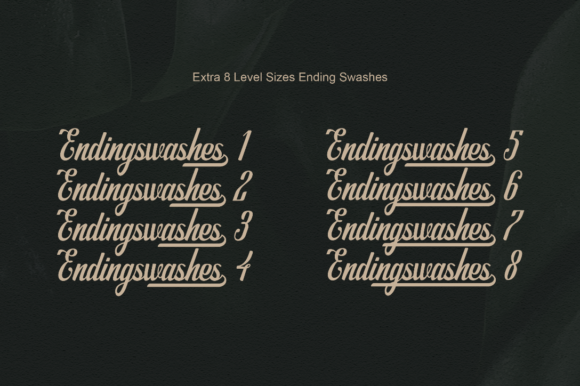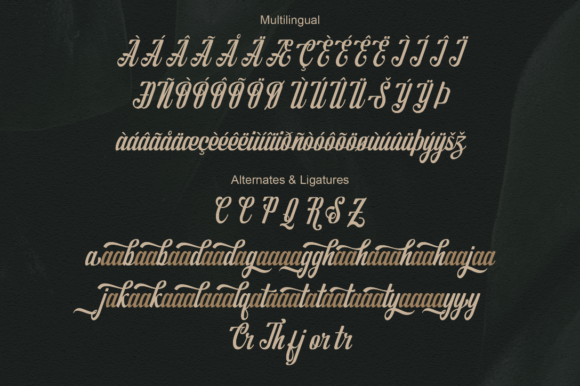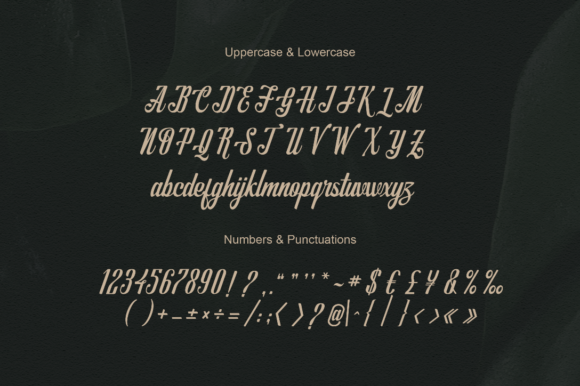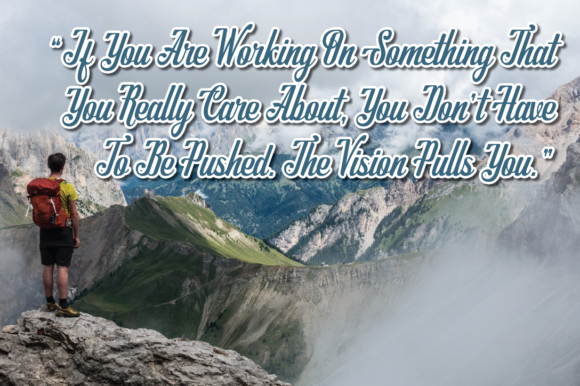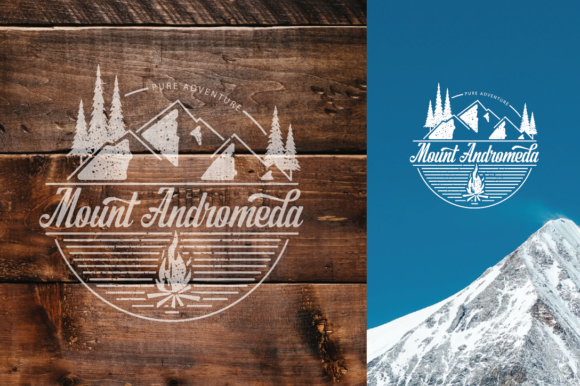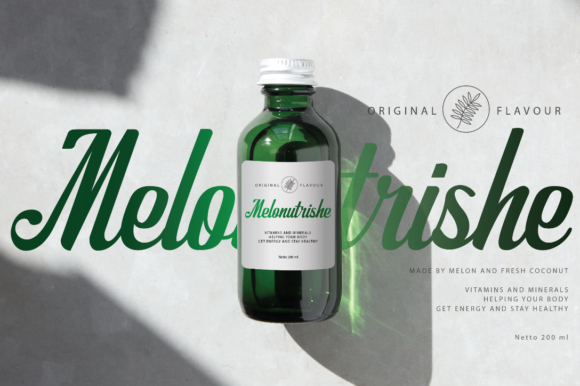
Introduction to Queenetha Font
As a designer, have you ever found yourself in a creative rut, staring at a blank page, and desperate for the perfect font to bring your project to life? I know I have! It’s those moments that make me appreciate the little gems I’ve discovered along the way, like the stunning Queenetha Font.
This high-quality, free download has become a staple in my design arsenal, and I’m excited to share its awesomeness with you. With its unique, handwritten style, Queenetha Font adds a touch of personality to any creative project, from branding to editorial design. Its transparent background makes it easy to layer and customize, giving you endless possibilities to express yourself.
Whether you’re a seasoned pro or just starting out, Queenetha Font is a valuable resource that’s sure to inspire your next design project. So, let’s dive in and explore the world of Queenetha Font together!
Key Features of Queenetha Font
- High-quality, free download font perfect for creative projects
- Unique, elegant design with a transparent background for seamless integration
- Designed as a design resource for various creative projects, including invitations, logos, and more
- Perfect for those looking for a high-quality, free font with a unique and elegant design
Honest Review: Queenetha Font
As a designer, I’m always on the lookout for high-quality fonts that can elevate my creative projects. The Queenetha Font caught my attention, and I was excited to try it out. Upon download, I was impressed with the clear and transparent background, making it easy to work with.
- ✨ High-quality design: The Queenetha Font boasts a beautiful, elegant design that’s perfect for a variety of creative projects.
- ✨ Versatile: The Queenetha Font is suitable for both digital and print projects, making it a great addition to any design resource.
- ⚠️ Limited font styles: The Queenetha Font only comes in a few styles, which might limit its versatility for more complex projects.
- ⚠️ Not suitable for bold headings: While the font is great for body text, it may not be the best choice for bold headings or titles.
Overall, I’m impressed with the Queenetha Font. While it may have a few limitations, its high-quality design and free download make it an excellent resource for designers. I’d definitely recommend it for any creative project that requires a elegant, sophisticated font.
Queenetha Font is suitable for various creative projects, including wedding invitations, birthday cards, and social media graphics. Use it to add a touch of elegance and sophistication to your designs.
To get the most out of Queenetha Font, experiment with different font sizes, colors, and styles. Combine it with other design elements, such as images and shapes, to create visually appealing designs.